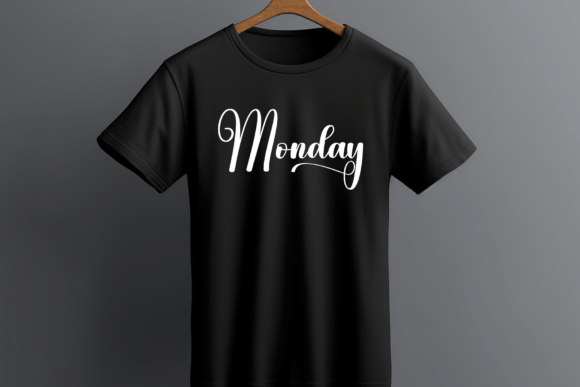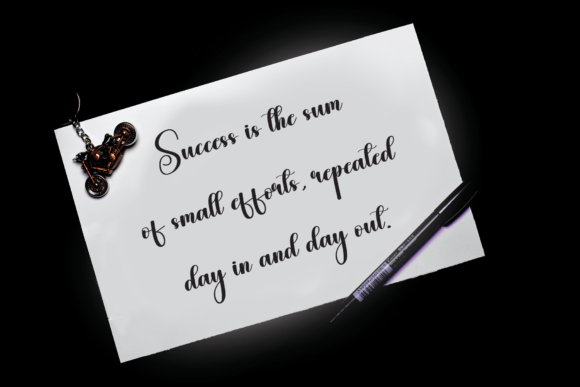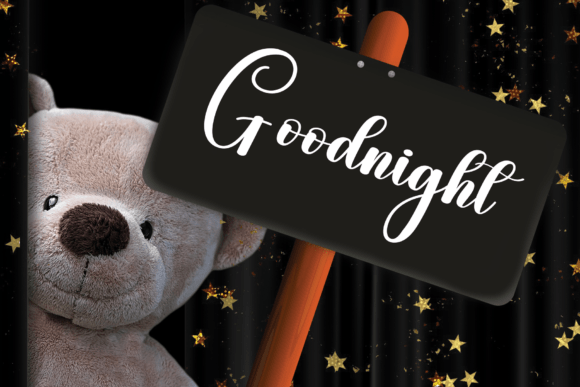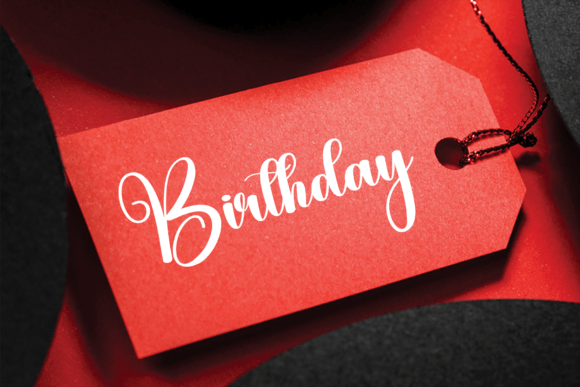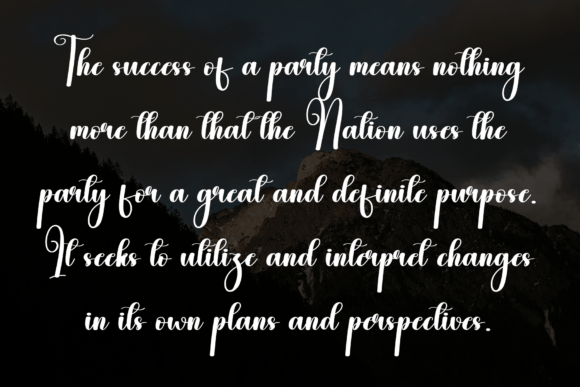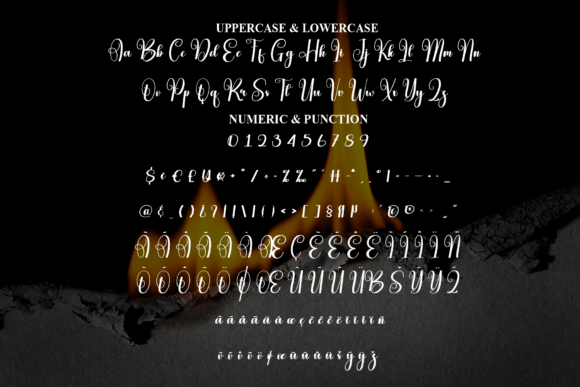
Whisking Up the Perfect Design: Introducing Baking Font
Remember the moment when a perfectly baked croissant or a beautifully decorated cake sparks a creative rush? For designers, those moments of inspiration can be just as fleeting as they are valuable. A single idea can transform into a cohesive brand identity, and that’s exactly what the Baking Font is designed to evoke.
Baking Font is a modern handwritten typeface that marries dramatic calligraphic flourishes with a strong visual presence. This unique blend of style and substance makes it an exceptional asset for designers looking to add a touch of luxury and customized artistry to their projects. Whether you’re creating culinary branding, artisanal food packaging, or high-impact editorial headers, Baking Font is sure to elevate your designs and leave a lasting impression.
Baking Font Key Features
- Font Family: Baking Font is a unique and playful font designed specifically for baking-related content, with a warm and inviting aesthetic.
- Character Set: Includes a comprehensive set of characters, including uppercase and lowercase letters, numbers, and punctuation marks, as well as special baking-related glyphs.
- Unique Characteristics: The Baking Font features a distinctive, hand-drawn style with subtle texture and imperfections, giving it a charming and artisanal feel.
Baking Font Review
I recently had the chance to work with the Baking Font, and I must say it’s been an interesting experience. Here’s my honest take on this font.
- Whimsical touch: The Baking Font has a playful, handwritten feel that’s perfect for baking-related projects or any other design that needs a personal touch.
- Readability: The font is clear and easy to read, even at smaller sizes, making it suitable for body text or headings.
- Cutout capabilities: The font’s design allows for seamless cutout capabilities, making it ideal for creating custom illustrations or graphics.
- Limited font styles: The Baking Font only comes in a single weight, which may limit its versatility for more complex designs.
- No international support: The font seems to be optimized for Latin-based languages, and I couldn’t find any information on support for other scripts or languages.
While the Baking Font has its charm and is suitable for specific projects, I wouldn’t recommend it for more extensive or complex designs. Its limitations, such as limited font styles and lack of international support, make it a niche choice. However, if you’re looking for a whimsical, handwritten font for a baking-themed project or a personal design, the Baking Font might be just what you need.
Baking Font is commonly used for:
- Culinary-related designs, such as recipe cards and food blogs.
- Event invitations and menus for bakeries and restaurants.
- Food-related social media graphics and advertisements.